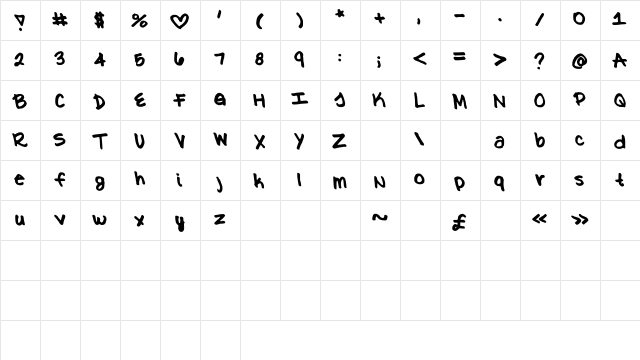
Kat Medium
Design Context for Kat Typeface
Kat is a composed and adaptable typeface that performs quietly and consistently across a wide range of design contexts.